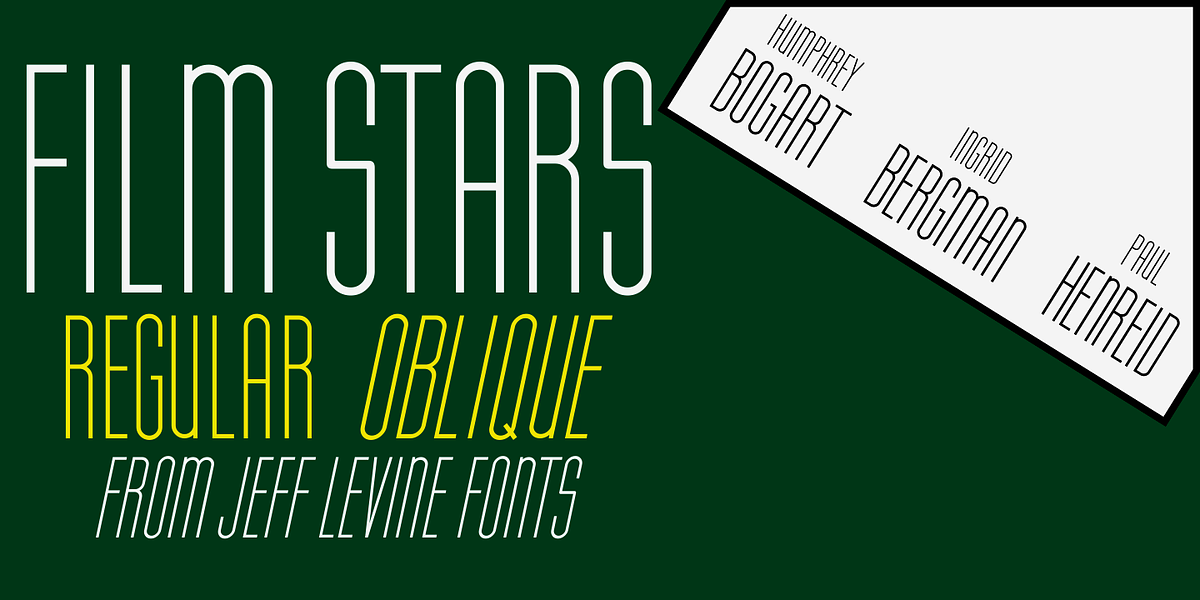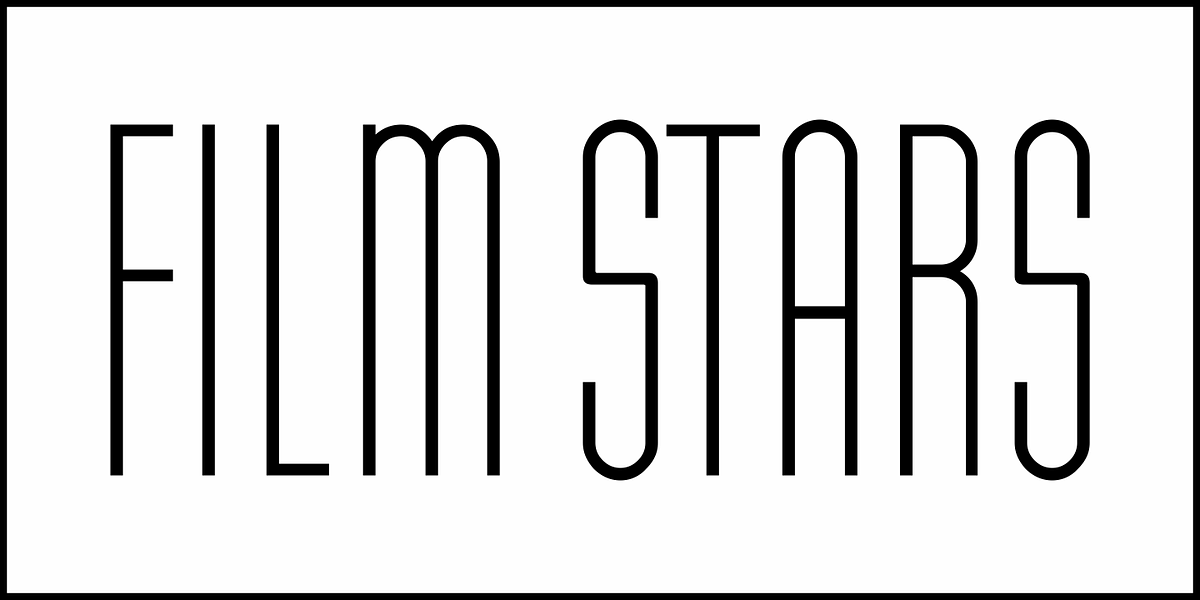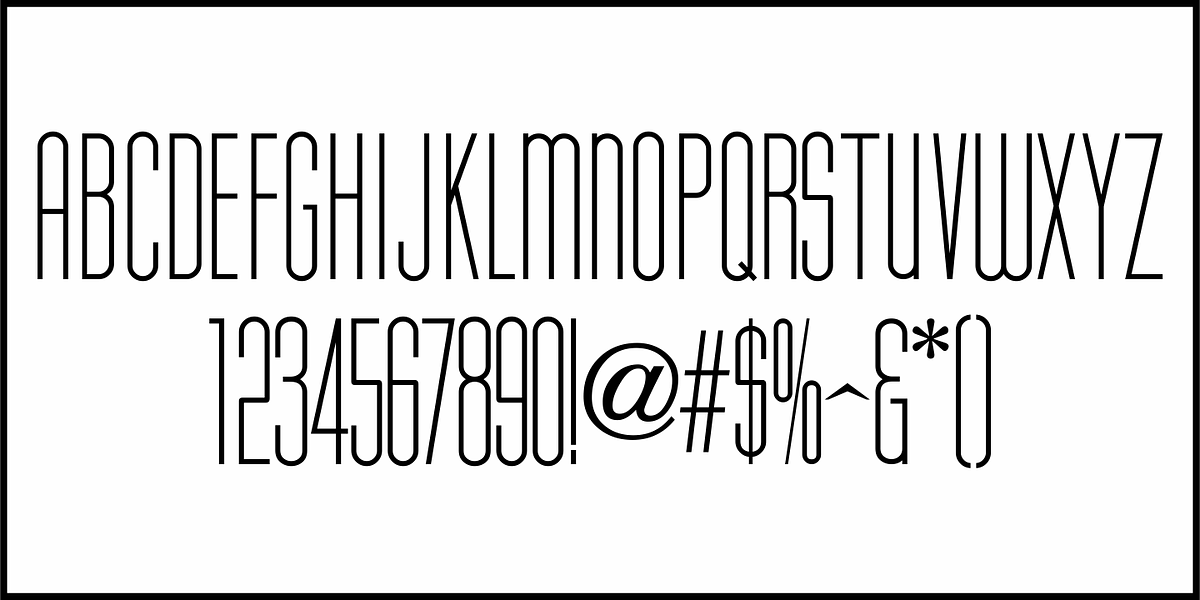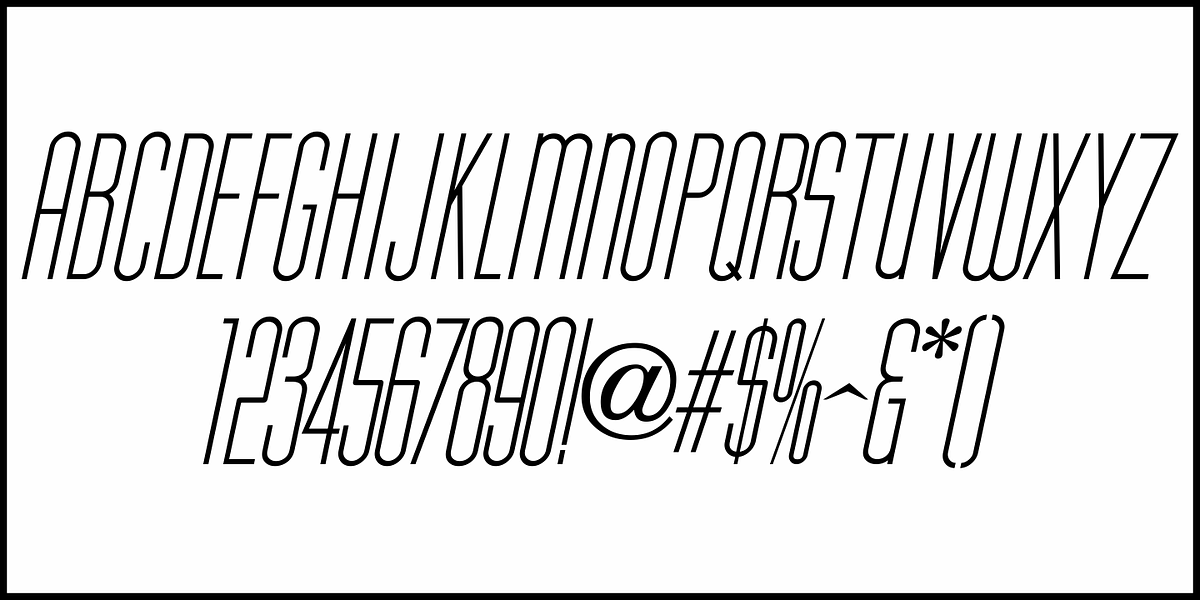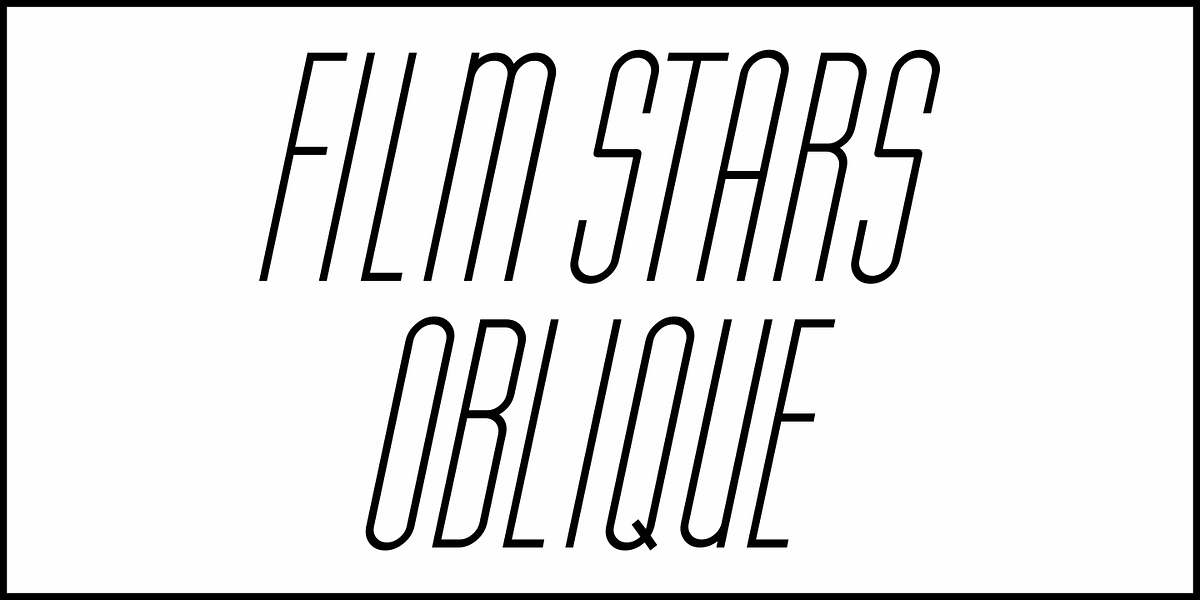
Film Stars JNL
A modified version of Art Deco lettering found on a Columbia Pictures promotional publication from July 9, 1935 is the basis for Film Stars JNL, which is available in both regular and oblique versions.
This condensed monoline type design bears a distant resemblance to Huxley Vertical, but has its own set of unique characteristics. One possible application is for retro-influenced movie poster cast and crew listings.
The modification made to the original hand lettered design was the removal of extended crossbars on many of the characters which would have played havoc with spacing and kerning. What may have worked well in a custom lettering job of the past with variable word and character spacing might look awkward in today's conventional digital typesetting.